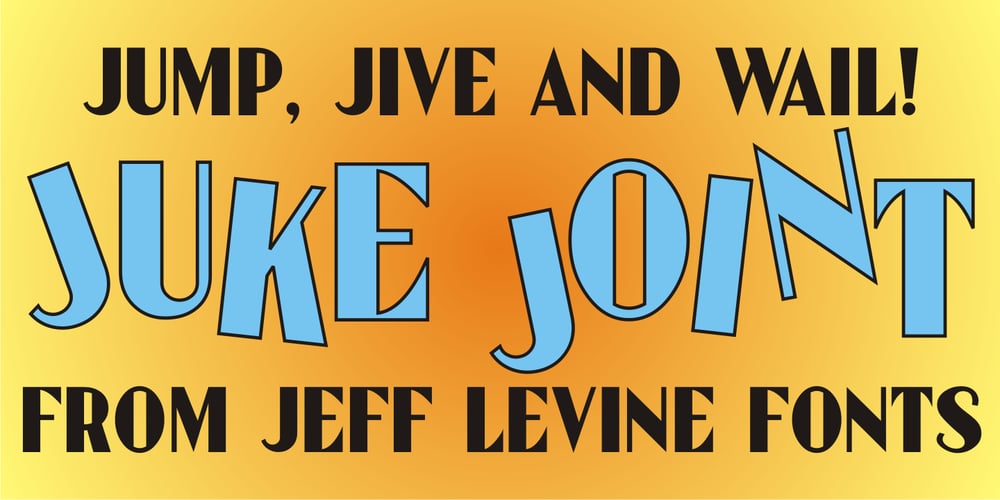
Juke Joint JNL Font Family was designed by Jeff Levine and published by Jeff Levine. Juke Joint JNL contains 1 styles and family package options. Although many pieces of sheet music used standardized backgrounds and metal type for their titles and information, there are hundreds of songs with innovative illustrations and clever typography beckoning potential buyers with their cover art. Whether the era was Post-Victorian, Art Nouveau or Art Deco, the sheer variety of eye-catching images offered visual enticement to the potential customer whilst browsing the local music shop.